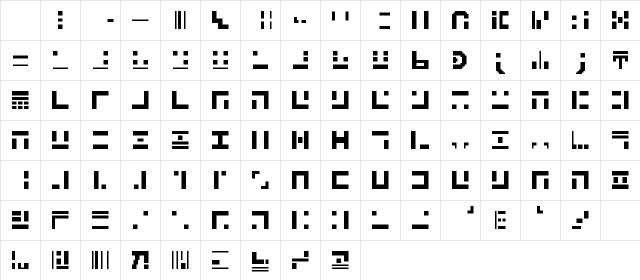
Complete alphax Medium glyph index. Displaying only characters natively supported by alphax Medium font.
alphax is a composed and adaptable typeface that performs quietly and consistently across a wide range of design contexts.